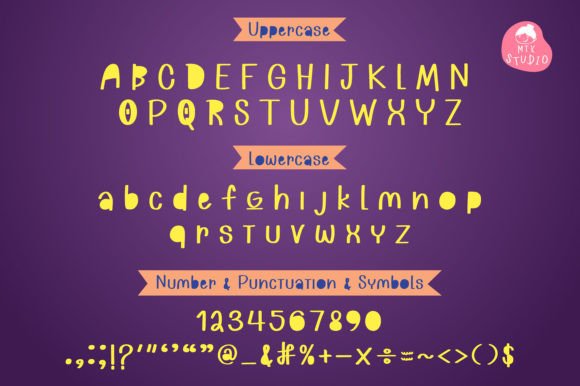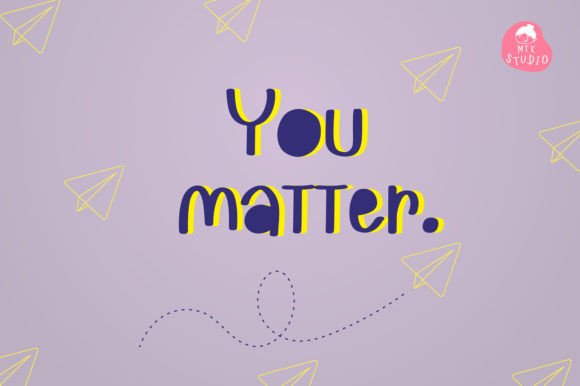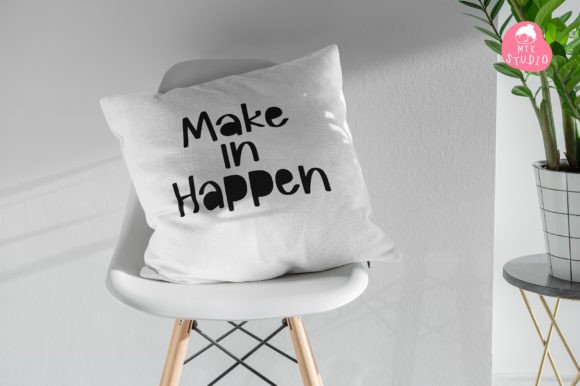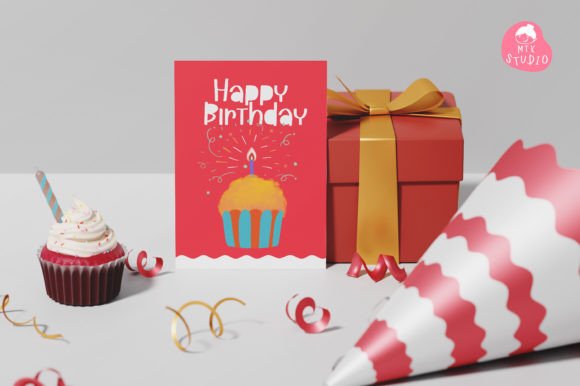
Introduction to Paperplane Font
Have you ever found yourself rummaging through your old sketchbook, searching for that one sketch that sparked a creative idea? For many designers, that moment of inspiration is the driving force behind their next project. For us, that moment often comes when we stumble upon the perfect design resource – a font that captures the essence of our vision. And that’s exactly what happens when we discover the Paperplane Font.
This sweet and friendly handwritten font is a game-changer for any creative project. Its natural and unique style makes it incredibly versatile, allowing designers to push the boundaries of their imagination. Whether you’re working on a personal project or a commercial design, the Paperplane Font is an invaluable asset that will elevate your work to new heights.
Key Features of Paperplane Font
- High-quality, unique design with a minimalist aesthetic, perfect for creative projects.
- Supports transparent background, allowing for seamless integration with various design elements.
- Perfect for use in digital design, such as logos, icons, and graphics, due to its high-quality, crisp lines.
- Easy to customize and modify, making it an excellent choice for designers working on creative projects.
Honest Review: Paperplane Font
I recently had the chance to work with the Paperplane Font, and I must say it’s been a game-changer for my design projects. This font is a fantastic addition to any designer’s toolkit.
- High-quality design: The Paperplane Font boasts clean lines, elegant curves, and a modern feel that’s perfect for creative projects.
- Transparent background: I appreciate that the font is available for free download with a transparent background, making it easy to customize and integrate into my designs.
- Perfect for digital designs: The Paperplane Font is ideal for digital projects, including websites, social media graphics, and presentations.
- Limited font styles: While the font itself is beautiful, it’s a single style, which may not be suitable for projects requiring multiple font variations.
- Not suitable for print: Unfortunately, the Paperplane Font may not be the best choice for print designs due to its digital origins.
Overall, I’m thoroughly impressed with the Paperplane Font. It’s a fantastic design resource that’s perfect for digital projects. While it may have some limitations, I believe it’s well worth considering for your next creative project.
Tips for Getting the Most Out of the Paperplane Font
Use the Paperplane Font on a transparent background to create a clean and minimalist design. Experiment with different font sizes and colors to find the perfect look for your creative project.
The Paperplane Font is perfect for creating designs that require a modern and sleek look. Use it for logos, business cards, posters, and other creative projects that need a high-quality font.